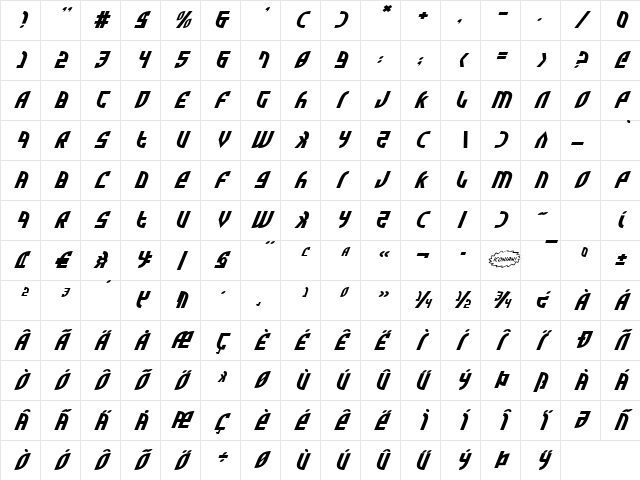
Zone Rider Exp Italic Free Font
Zone Rider Exp Italic Exp Italic
Style: Exp Italic
Complete Zone Rider Exp Italic glyph index. Displaying only characters natively supported by Zone Rider Exp Italic font.
Design Context for Zone Rider Exp Italic
Zone Rider Exp Italic is a composed and adaptable typeface that performs quietly and consistently across a wide range of design contexts. The slanted form adds forward momentum and visual energy.
Pro Tip: Use Zone Rider Exp Italic for emphasis, pull quotes, and subheadings where its slanted energy can add rhythm to the layout.